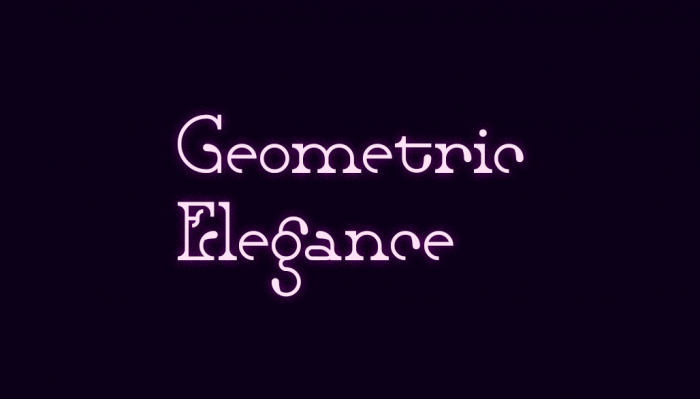
This is amazingly stylish. Those huge curves look sooo good with those serifs and decorative flairs. I love how you crafted the y with the serpentine tail of the Q/g.
It's a shame there aren't the right size curves for B/S/etc. The B might be improved by shifting the top-right portion a bit to the left. And the x may be trying to stretch a little too far ;-)
Still, a stunning design. I just noticed the serifs on the middle and lower bars of the E and both are amazingly creative in their own separate ways. Very well done overall. 10/10 + fave
With some modifications, you could present this font to the TwentiesComp. It would work very well...